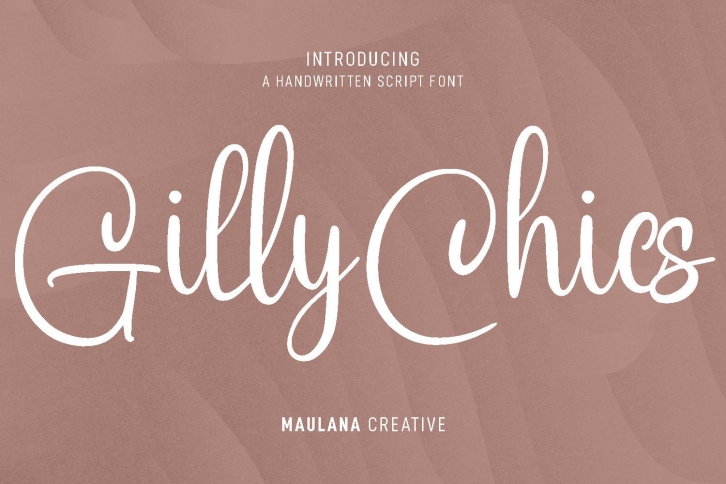
Gilly Chics is a fancy and sweet handwritten script font. It has a classy, elegant, and modern look that can be used for logos, branding, invitations, stationery, wedding designs, social media posts, and much more!